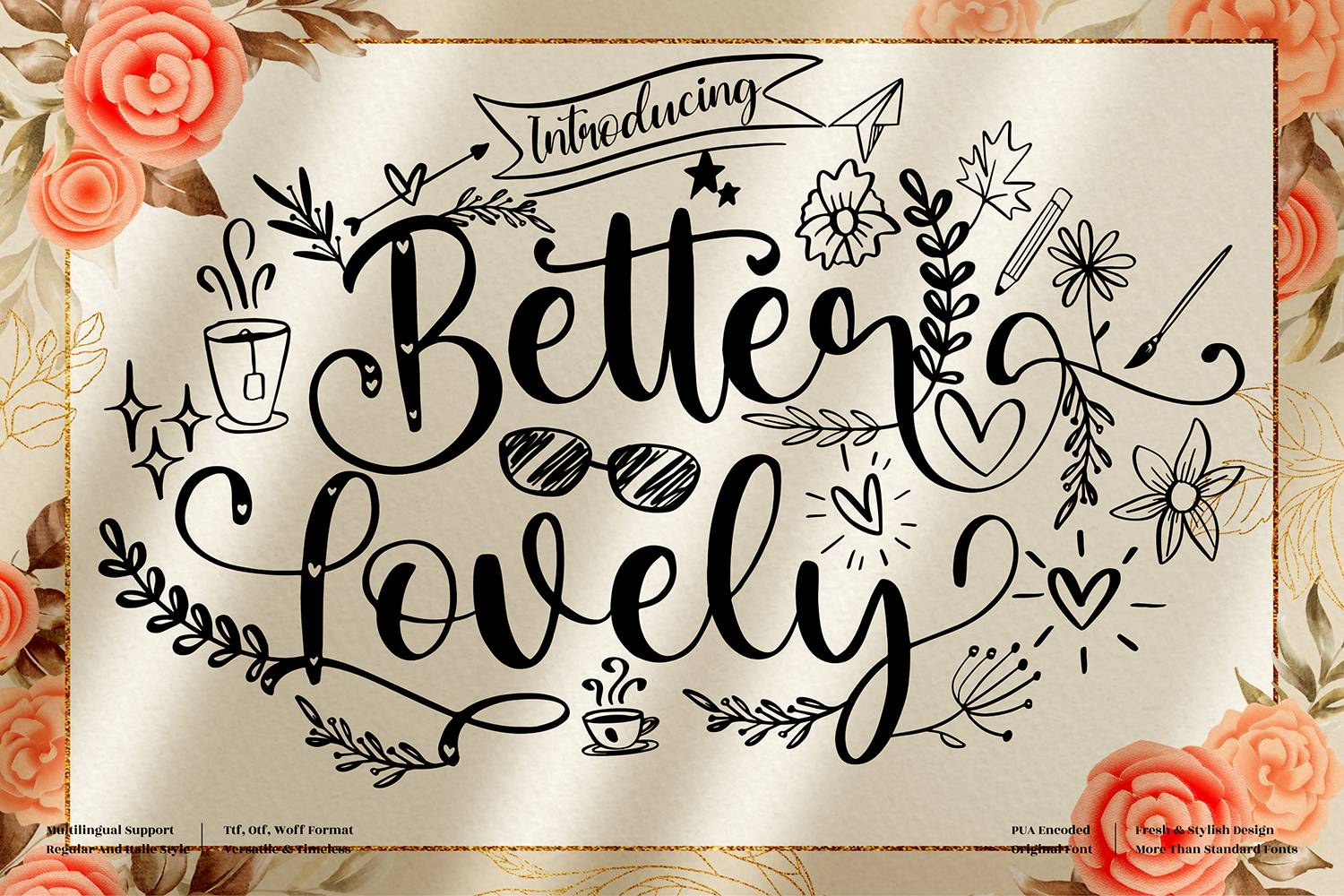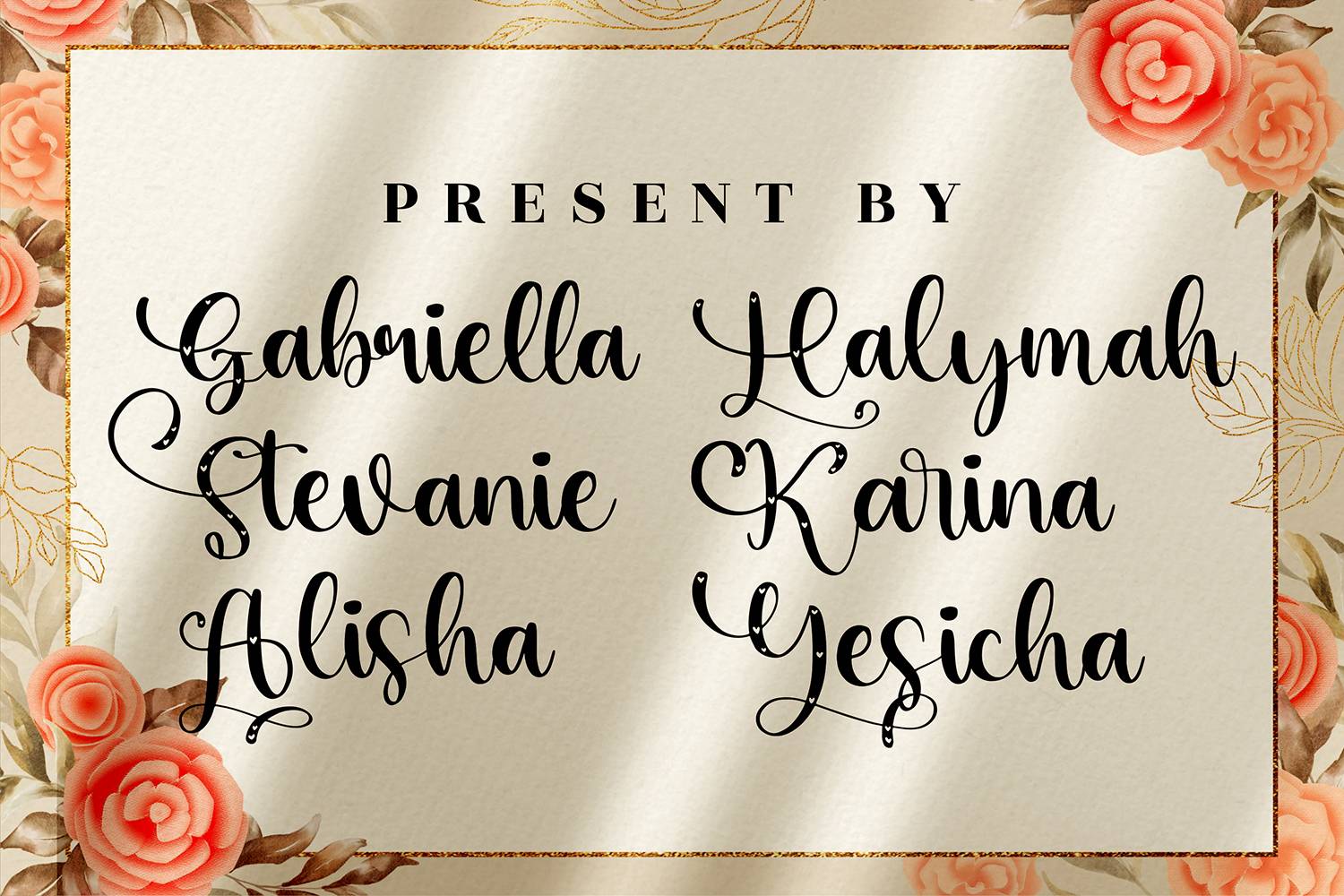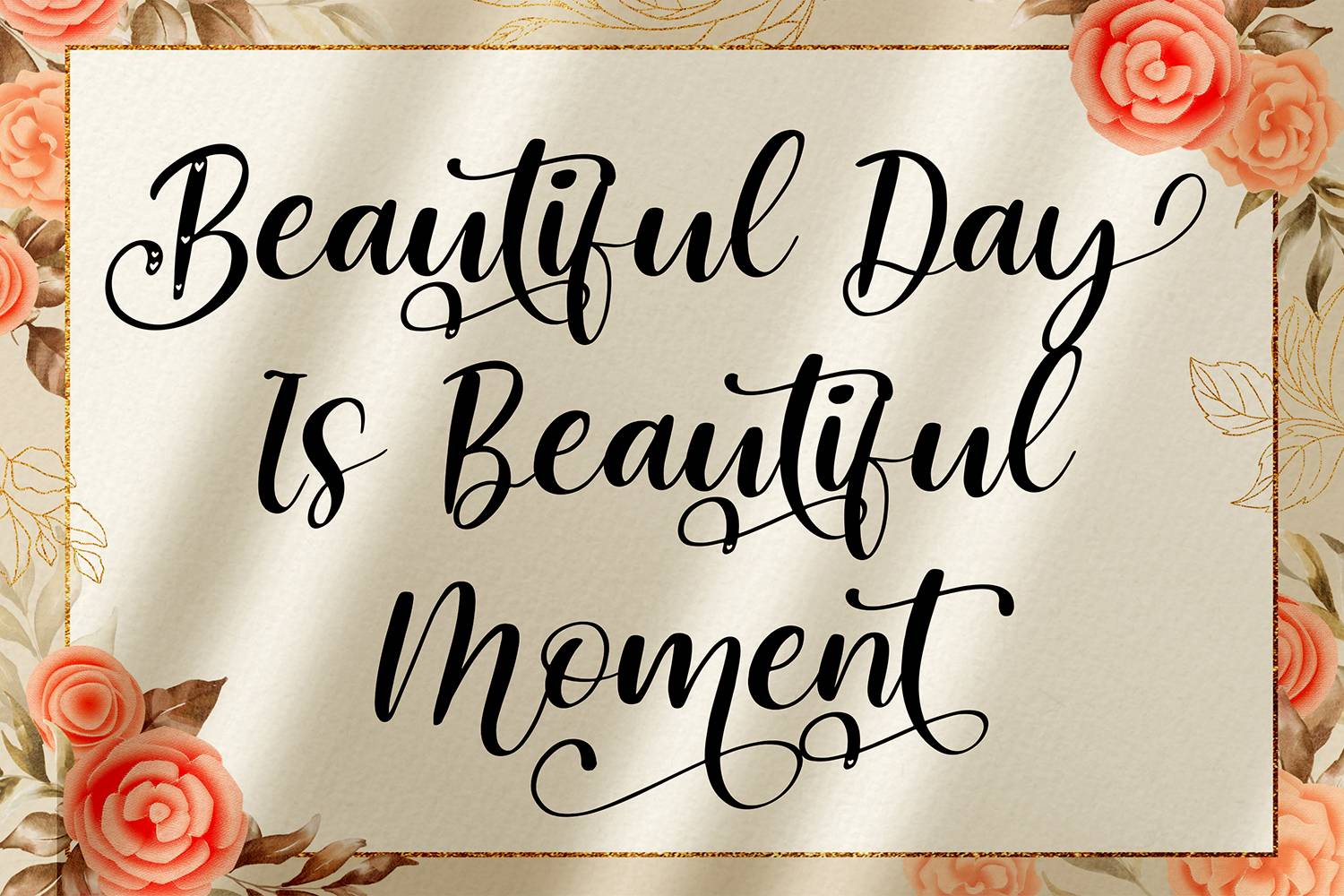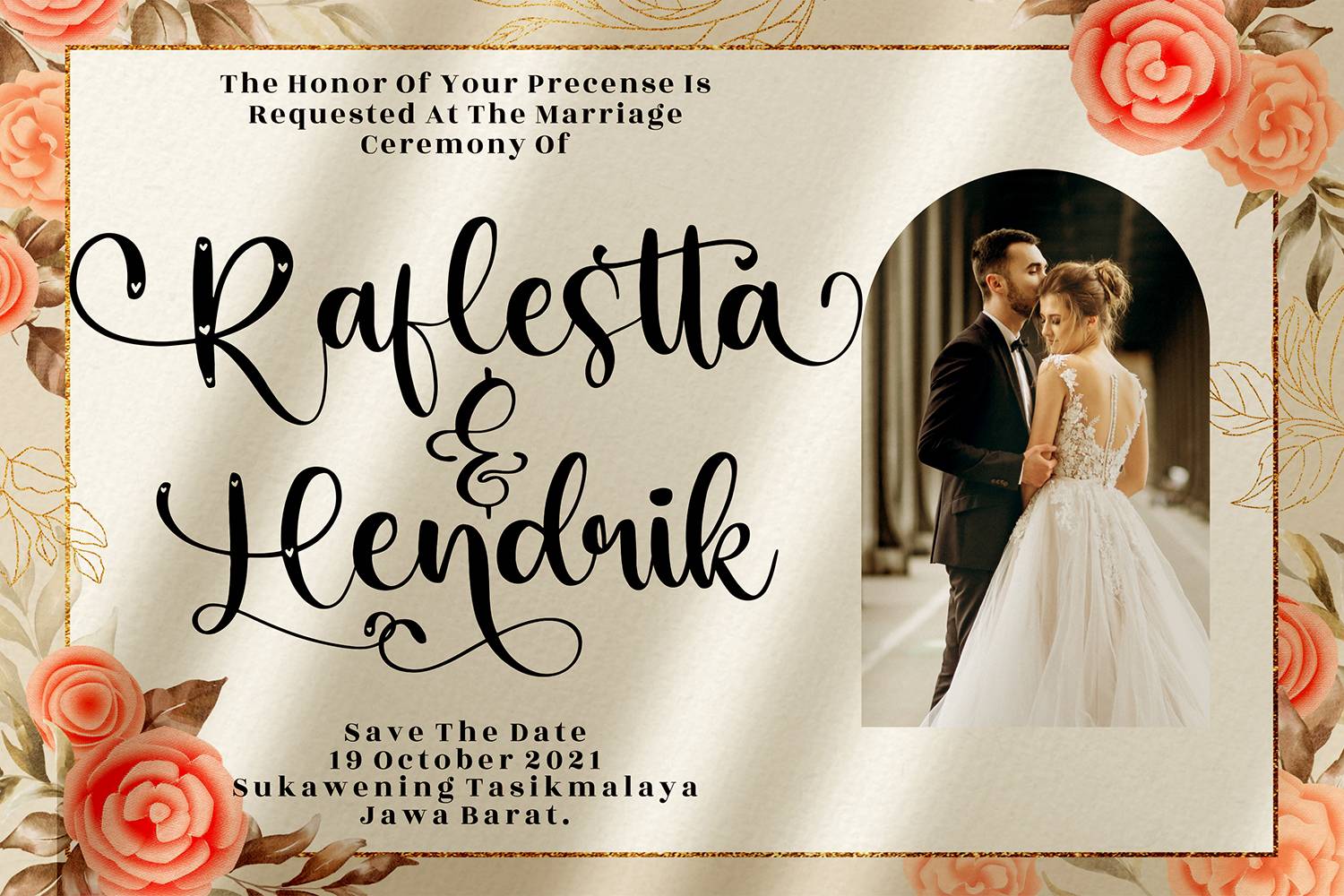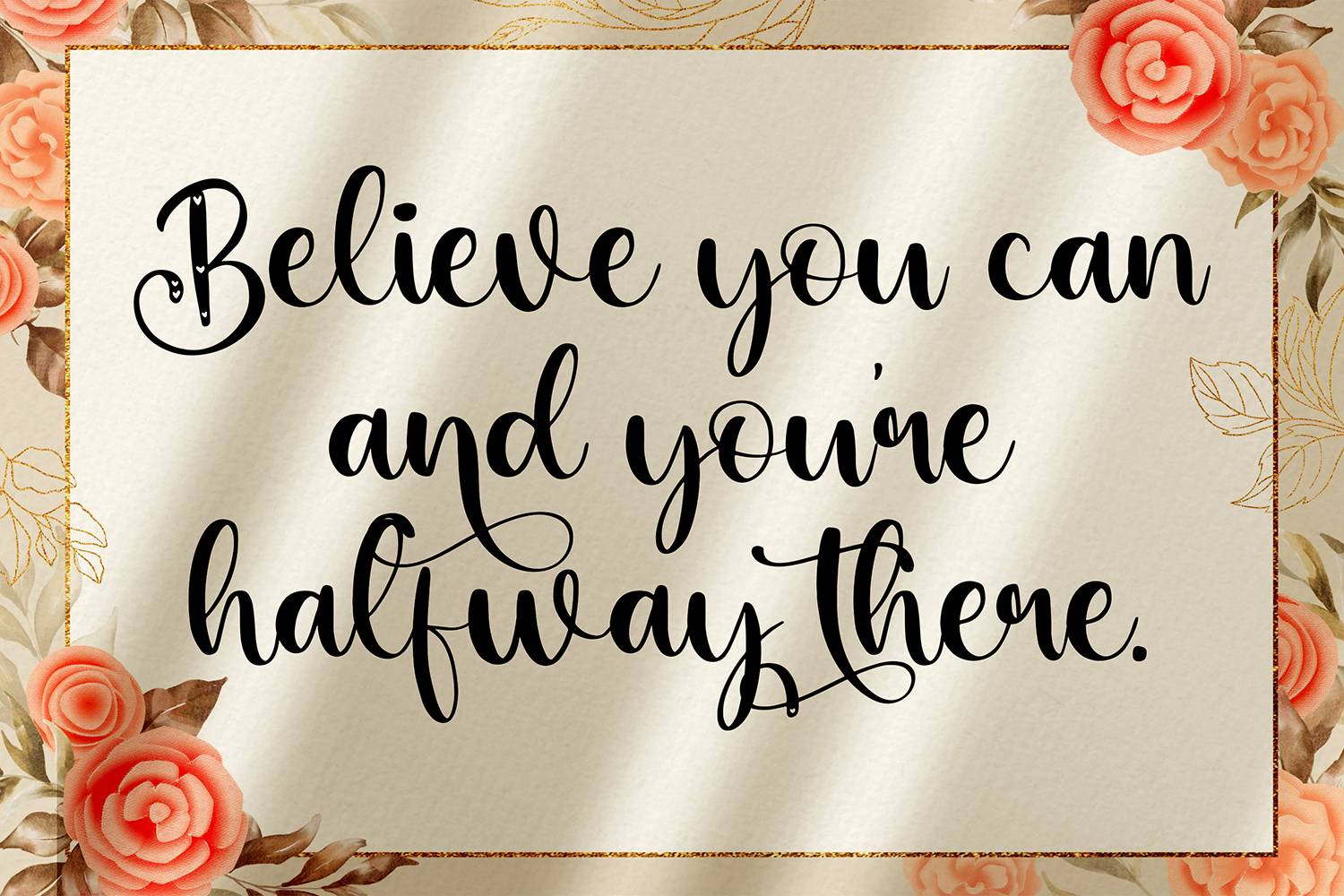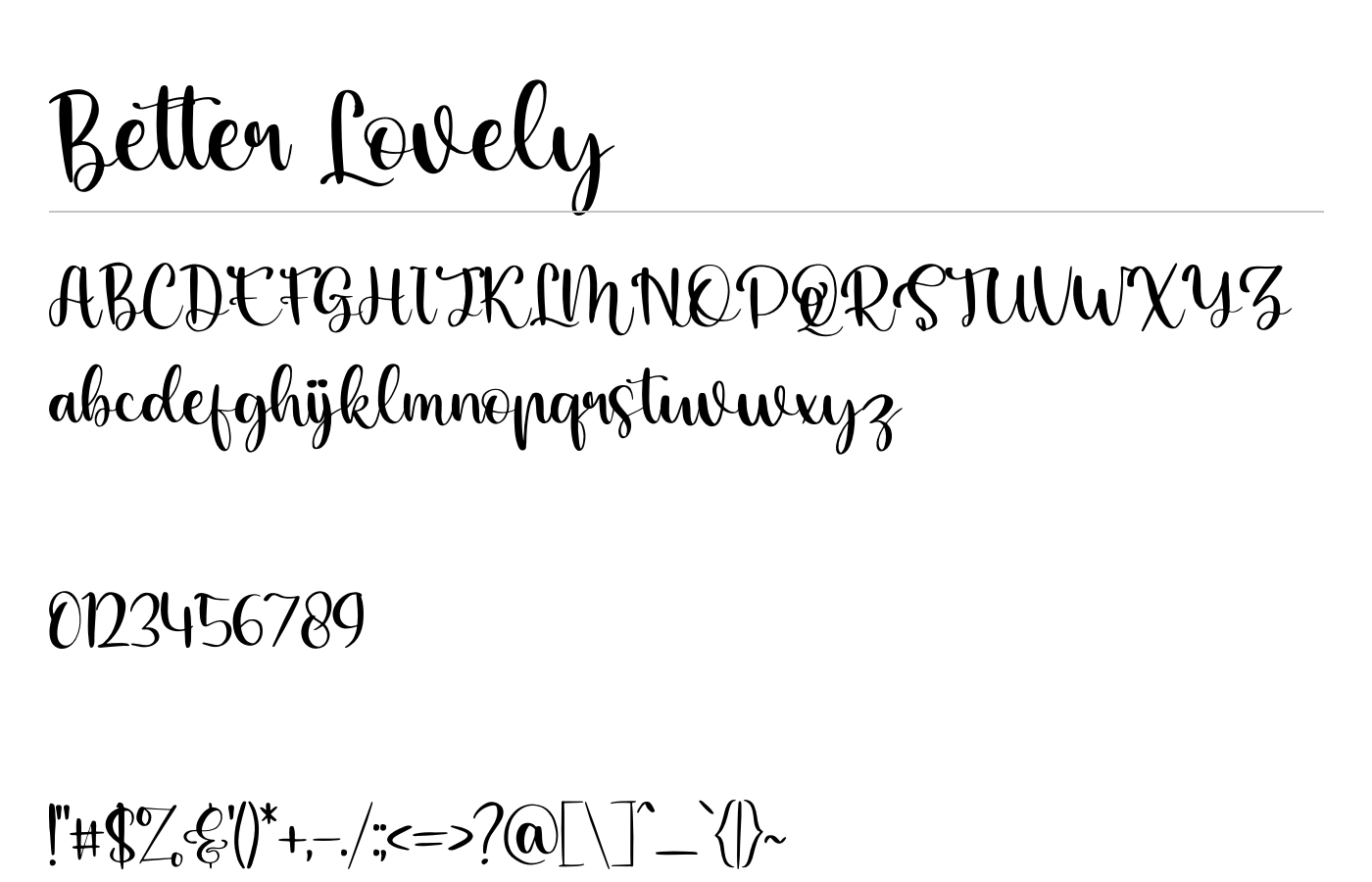
Better Lovely Font is a charming, handwritten script typeface with elegant, flowing strokes and playful swashes that give it a warm, friendly feel. Its moderate weight and lively letterforms make it perfect for creative projects, invitations, branding, or any design that wants to convey a personal, whimsical touch. This font works beautifully in headlines and decorative text where a stylish, heartfelt vibe is desired.
Better Lovely Font
About Better Lovely Font